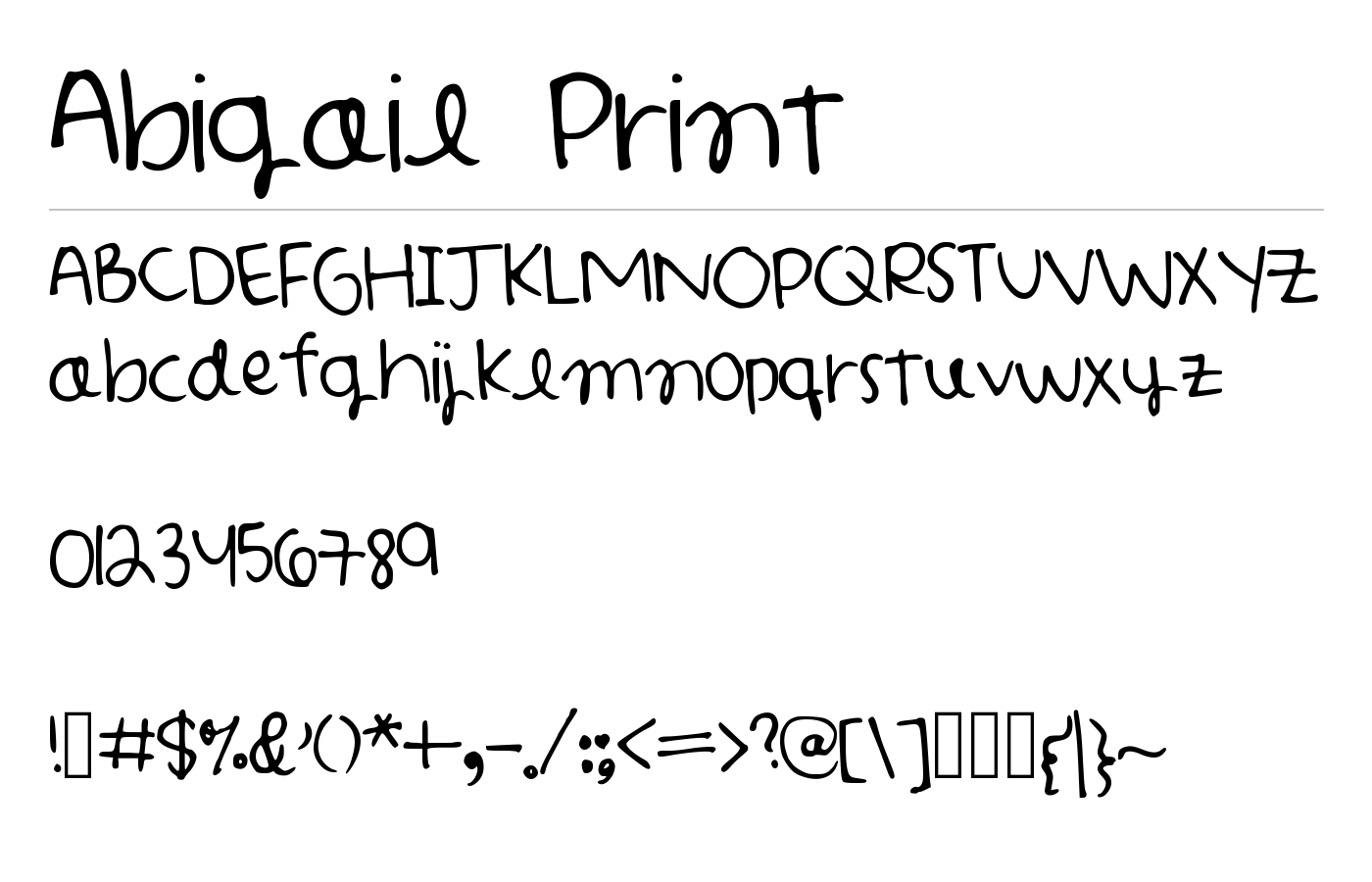
Abigail Print is a playful, casual handwritten sans serif font with a light weight and a slightly condensed, tall x-height that enhances legibility. Its uneven stroke style and quirky letterforms give it a friendly, approachable personality, perfect for informal, creative projects such as kids’ books, greeting cards, or casual branding. This font shines in designs where charm and warmth are key, adding a personal, human touch without sacrificing clarity.
Abigail Print Font
About Abigail Print Font